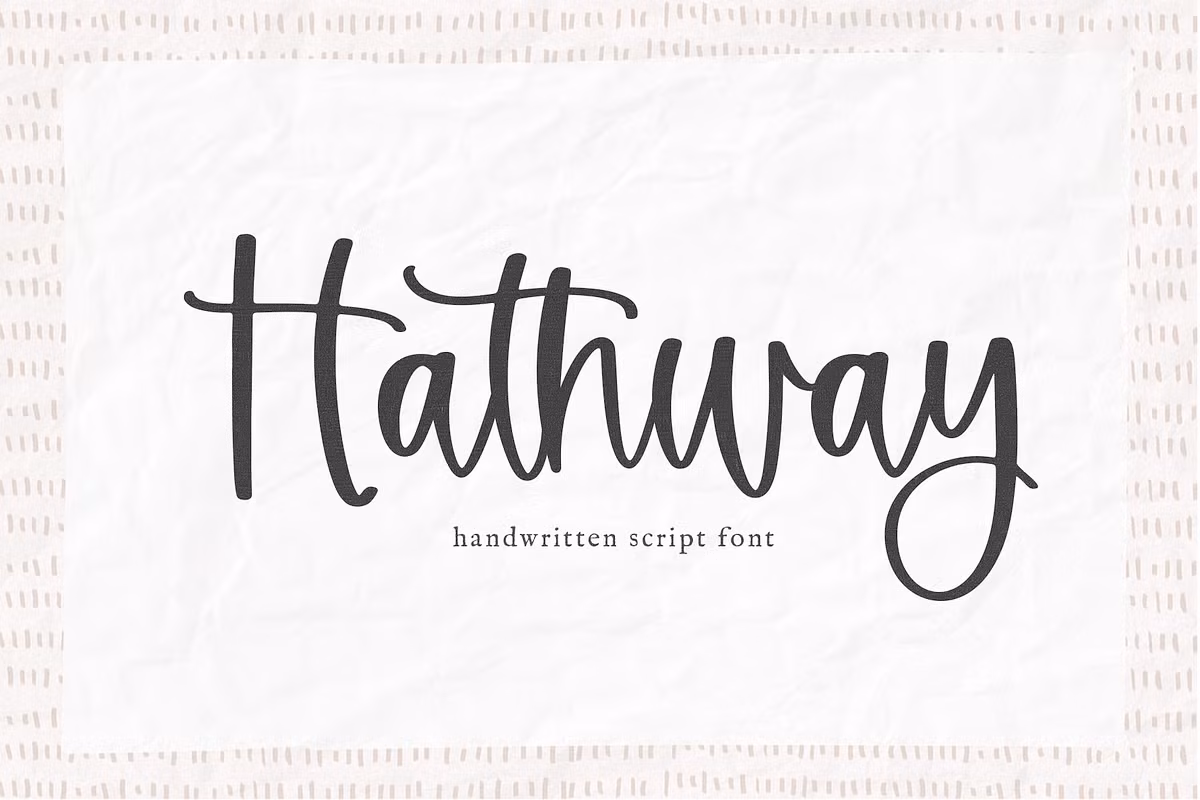
Hathway | Modern Script Font Free Download
Hathway – Modern Script Font Free Download
Please note that you must purchase this font for commercial use. You can download Hathway – Modern Script Font for free, strictly for personal testing purposes only. Hathway is a sophisticated, modern script font designed with fluid, smooth strokes and a contemporary feel. Hathway Font Free Download is perfect for logos, branding, invitations, social media graphics, and any project that requires a stylish, handwritten aesthetic.
The font offers a perfect blend of elegance and modernity, making it versatile for both formal and casual designs. It includes uppercase and lowercase letters, numerals, punctuation, and multilingual support, ensuring flexibility for a wide range of design projects.
Whether you're creating an elegant brand identity, designing chic invitations, or crafting engaging social media content, Hathway adds a refined, stylish touch to your typography.